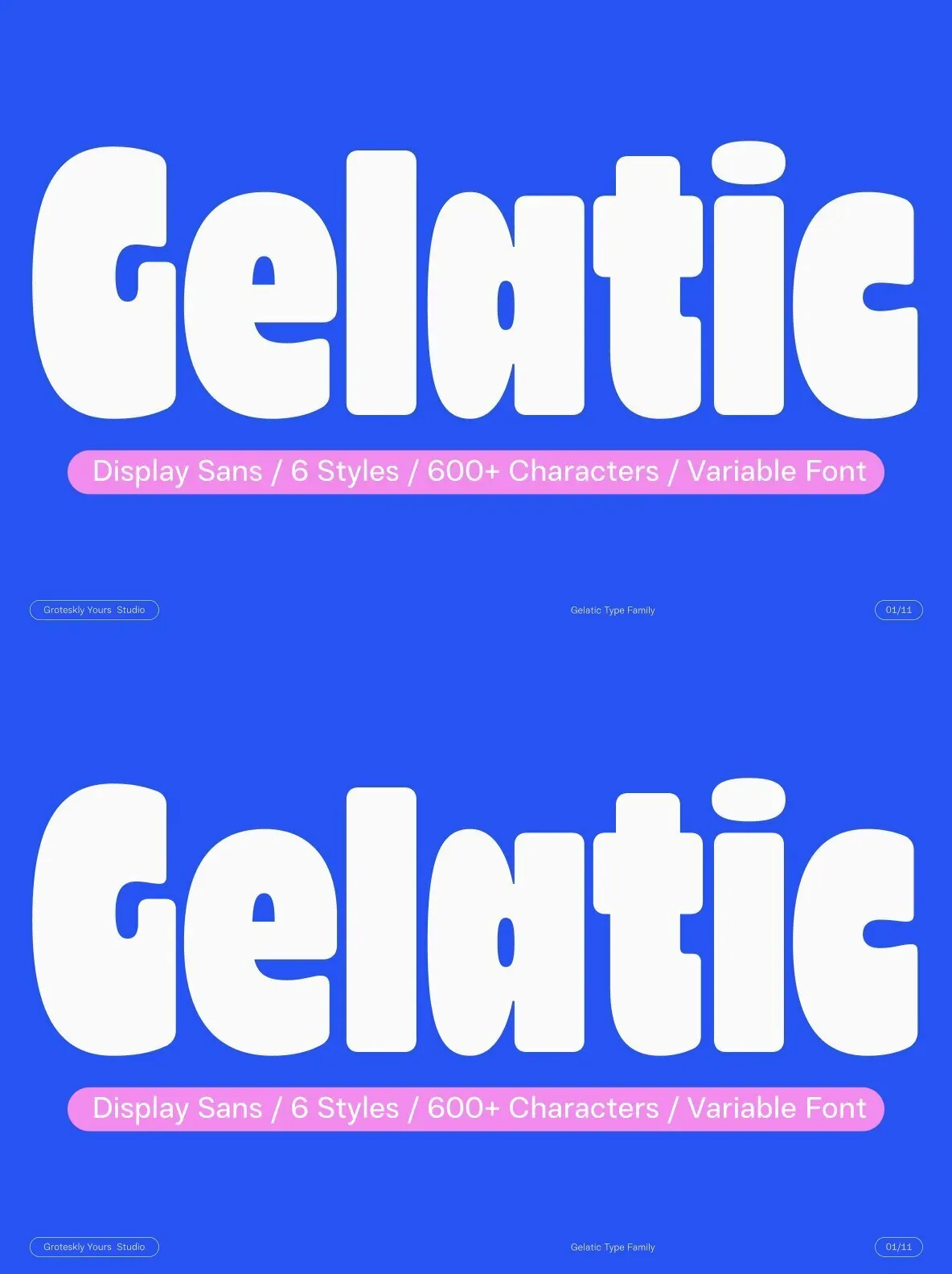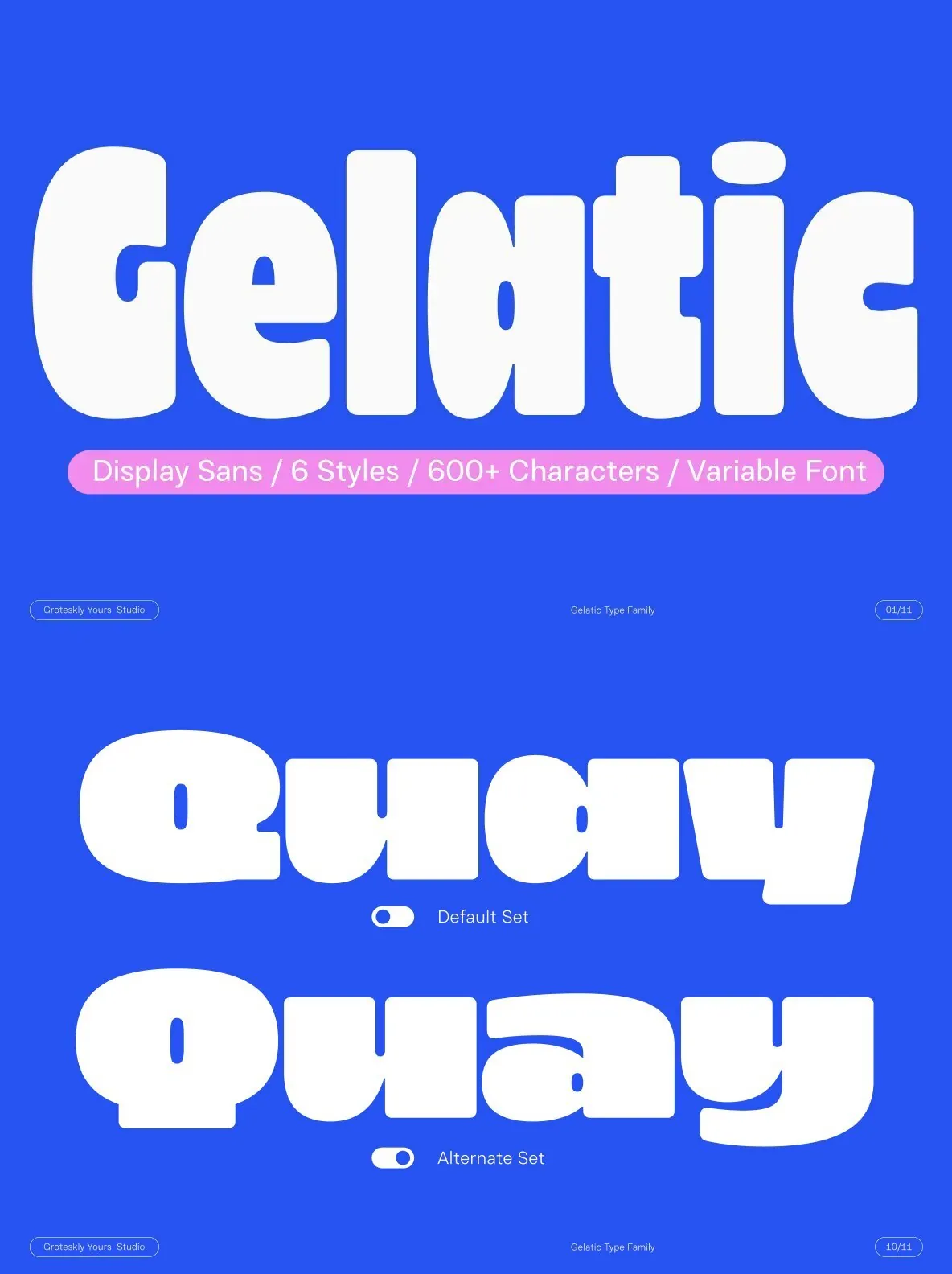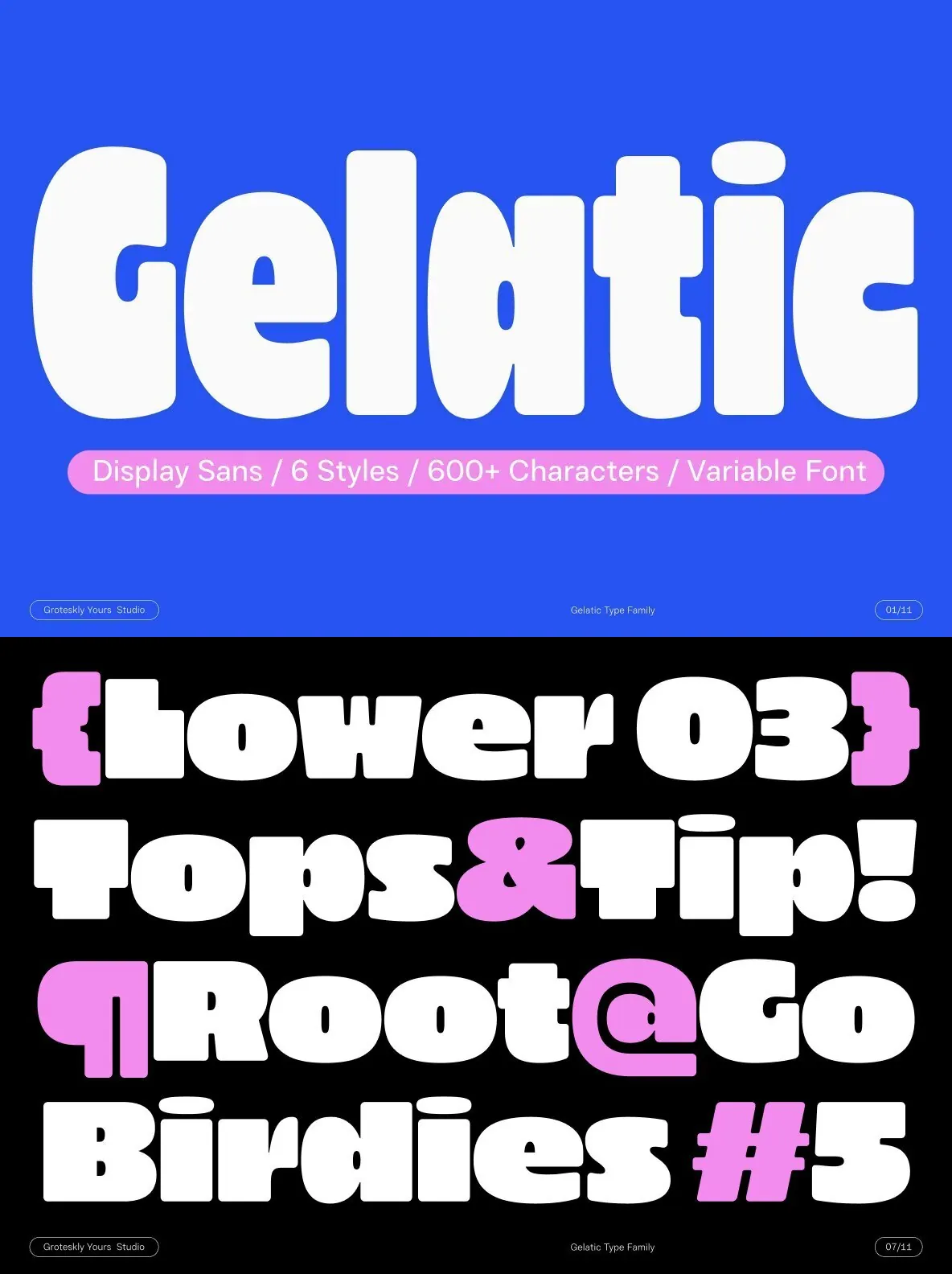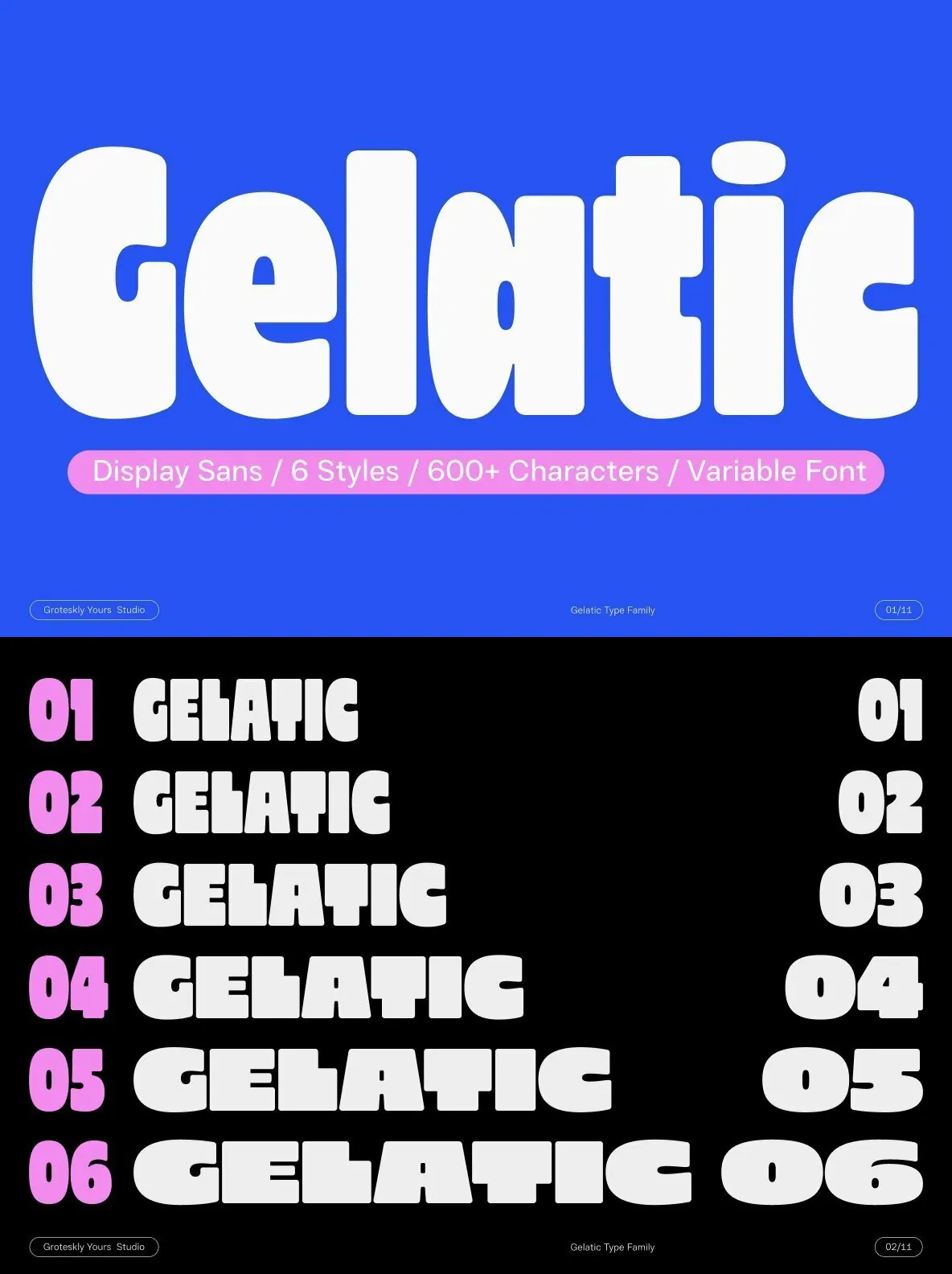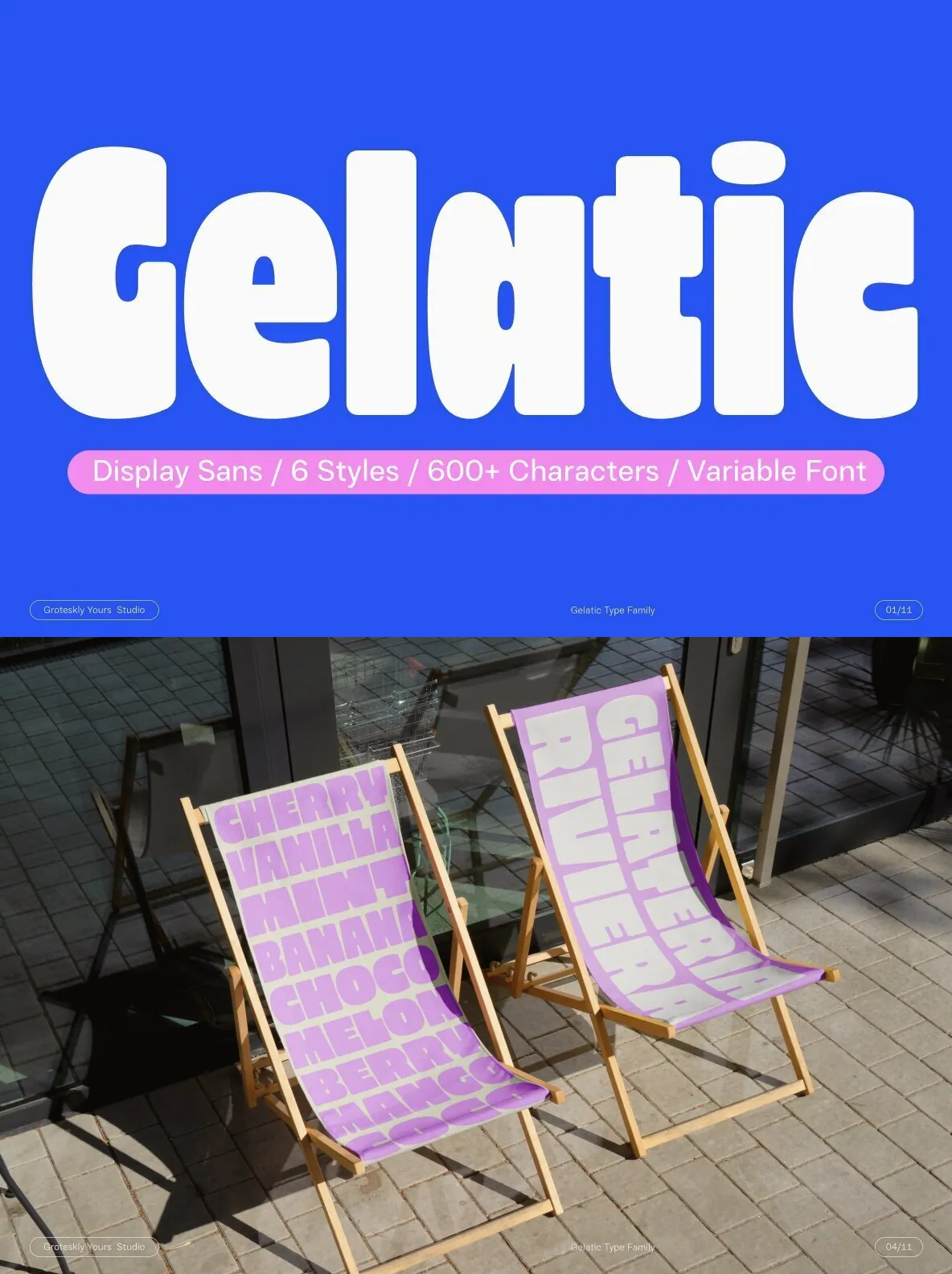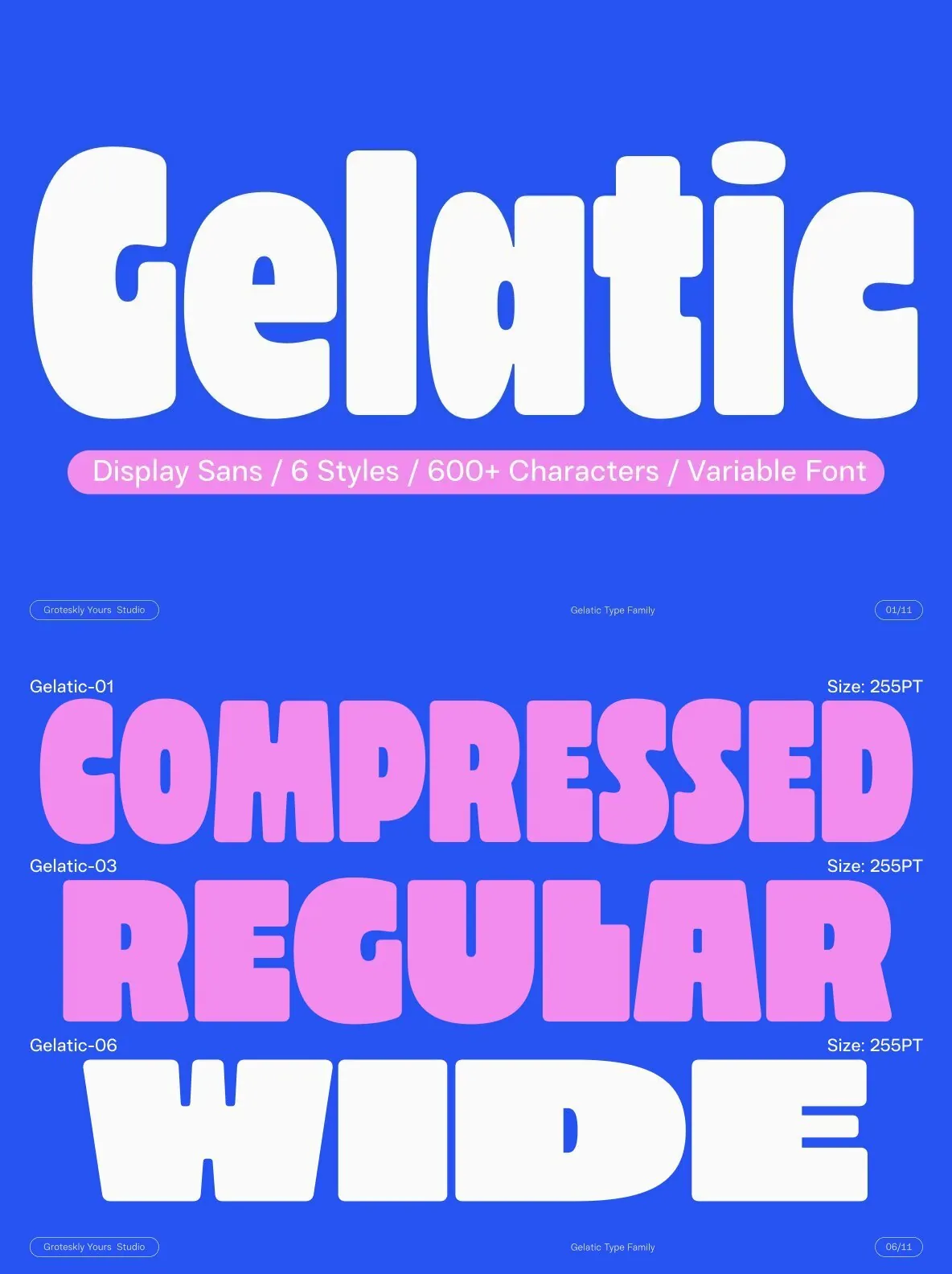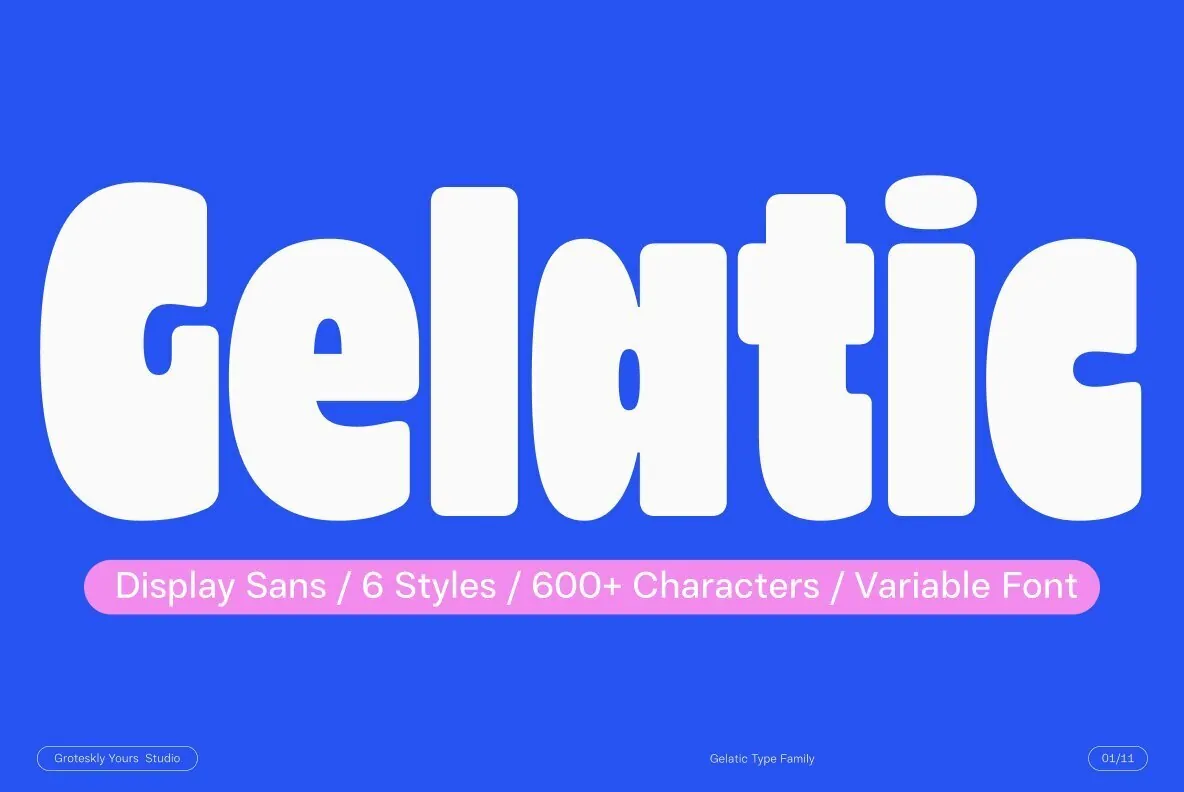
Gelatic Font
Gelatic — Whimsy with a Heroic Edge
Gelatic is a display sans serif type family with a lively, whimsical tone. It comes in six distinct styles, plus a variable font option, so it adapts easily to different design needs. Its almost quixotic vibe moves between playful and heroic, which suits ice cream and sweets packaging, as well as any project that calls for fun and delight.
Bold letterforms and tight spacing give Gelatic a clear, engaging rhythm. Use it for short headlines, brief texts, and logos where you want energy without losing clarity. Gelatic also includes an extensive character set of over 600 characters and supports more than 200 Latin-based languages, making it practical for work across regions and applications. With varied weights and widths, it lets you fine-tune a catchy, expressive, or vibrant aesthetic.
OpenType Features
Case Sensitive Punctuation
Stylistic Alternates
Ligatures